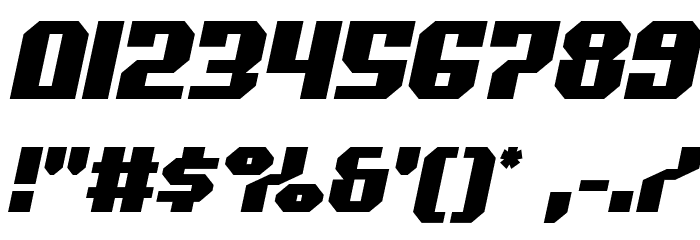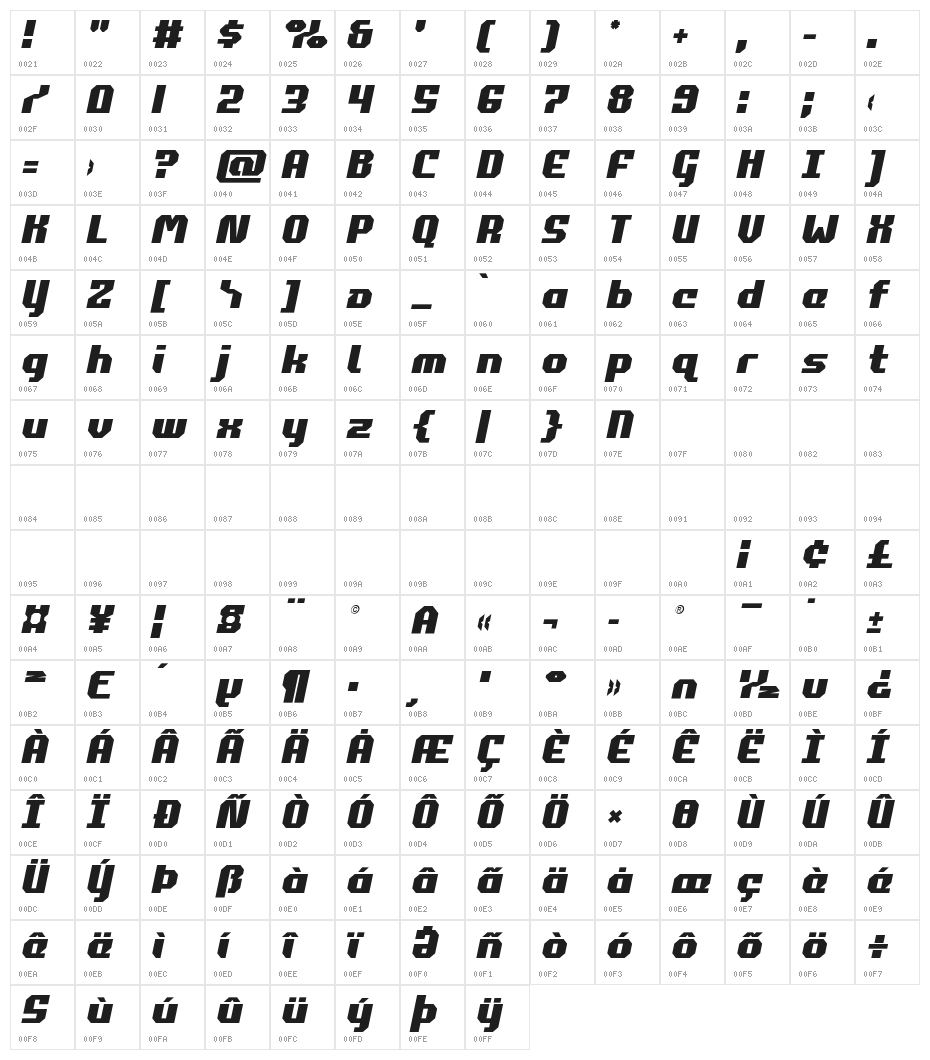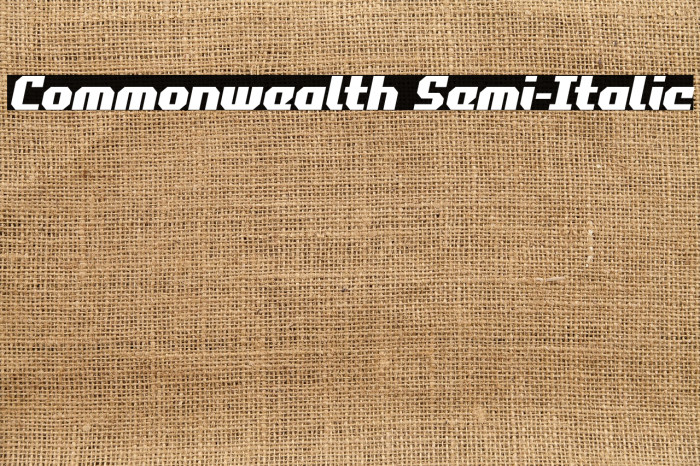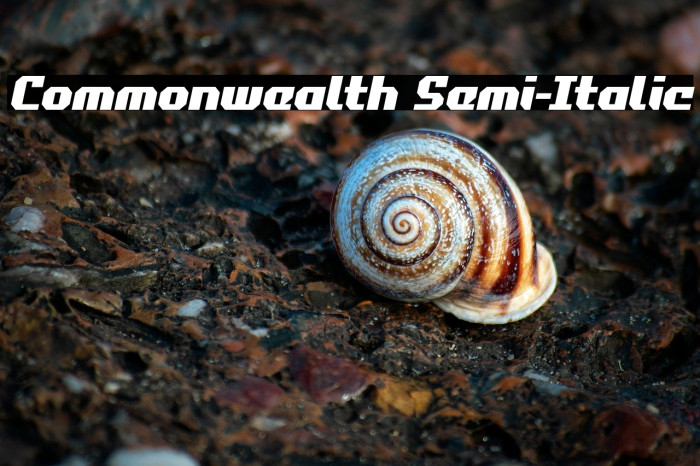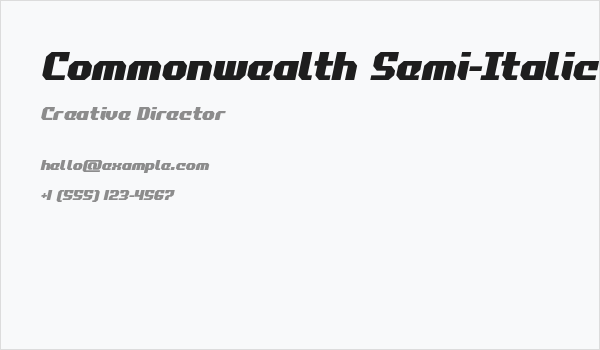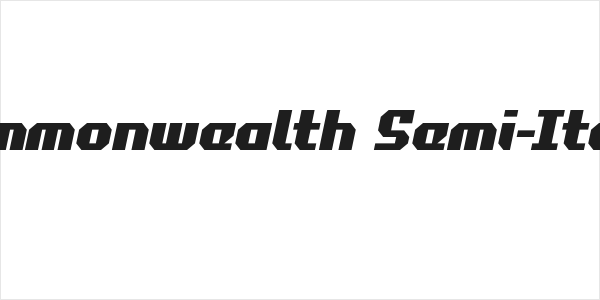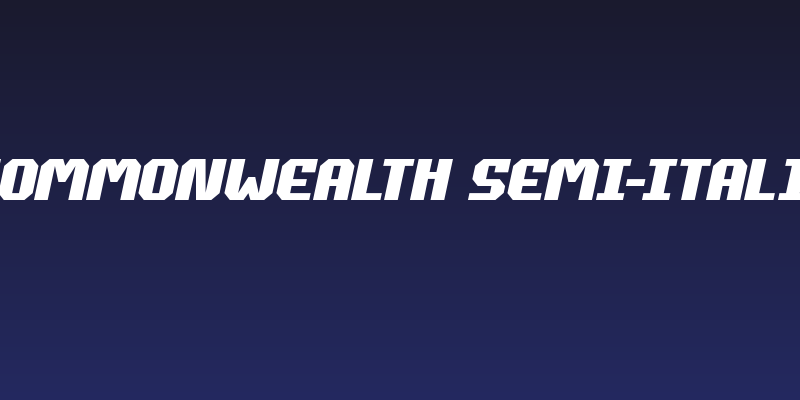
Commonwealth Semi-Italic Font
Commonwealth Semi-Italic Description
This font features a bold and dynamic style with a semi-italic slant, giving it a sense of motion and energy. The characters are angular and geometric, with sharp edges and a strong presence. The uppercase and lowercase letters maintain a consistent design, ensuring readability while adding a unique flair. The numerals are equally bold, matching the overall aesthetic of the alphabet. Special characters are designed to complement the letters and numbers, maintaining the same angular and bold characteristics. This font is ideal for projects that require a modern and impactful look.